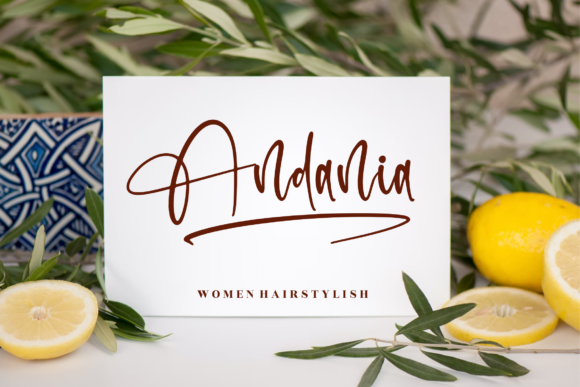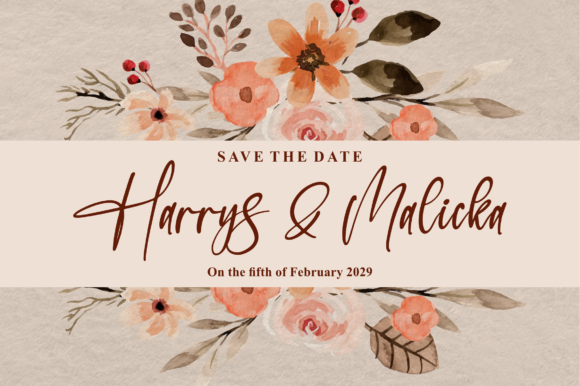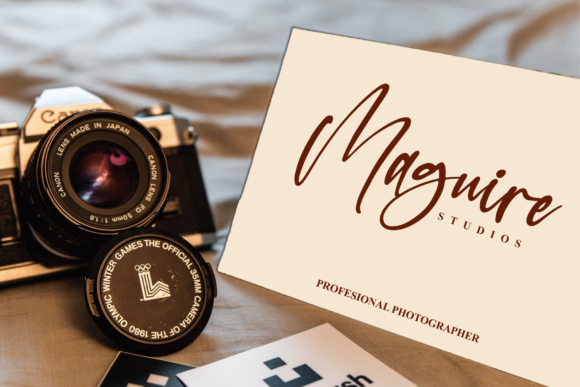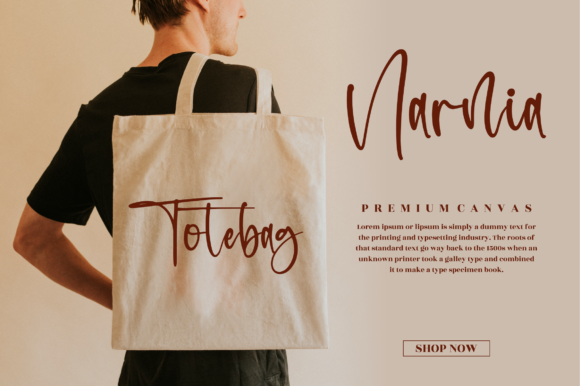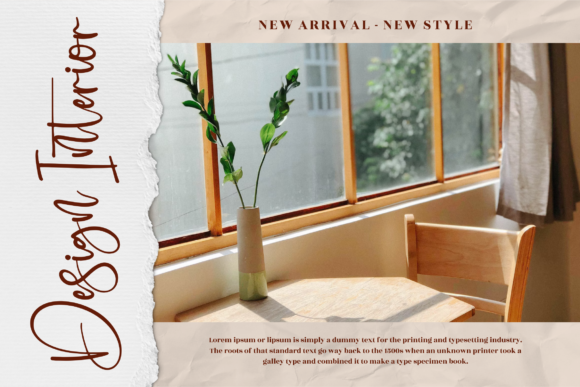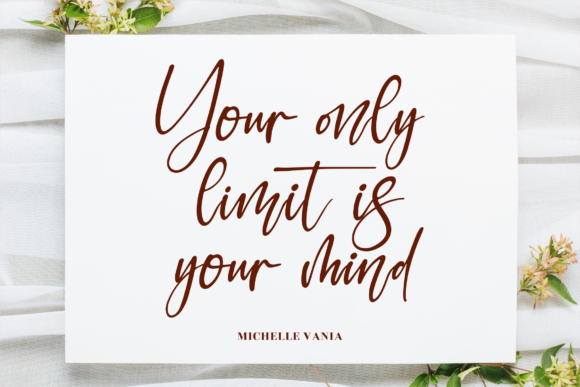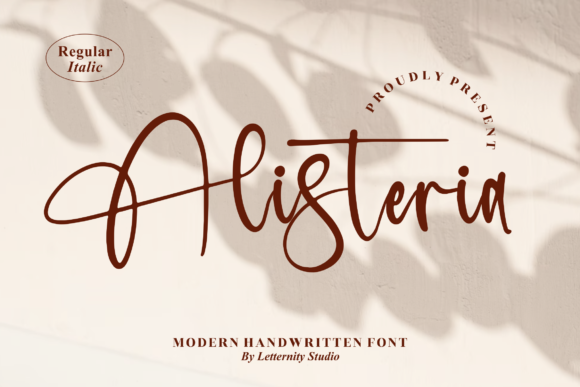
Introducing Alisteria Font: Elevate Your Designs with Luxurious Calligraphy
Are you looking for a font that adds a touch of elegance and sophistication to your design projects? Look no further than Alisteria Font, a stunning calligraphy typeface that is sure to make your designs stand out. With its unique and flowing characters that dance along the baseline, Alisteria Font is the perfect choice for designers and crafters who want to add a luxury spark to their work.
What Makes Alisteria Font Special?
Alisteria Font is a beautiful calligraphy typeface that boasts a range of impressive features. One of the standout features of this font is its PUA (Private Use Area) encoding, which allows you to access all of the amazing glyphs and ligatures with ease. This means that you can easily add intricate details and flourishes to your designs, taking them to the next level.
The Benefits of Using Alisteria Font
So why should you choose Alisteria Font for your design projects? Here are just a few of the benefits of using this gorgeous font:
- Adds a touch of luxury: With its elegant and sophisticated design, Alisteria Font is the perfect choice for designers who want to add a touch of luxury to their work.
- Unique and eye-catching: The flowing characters and intricate details of Alisteria Font make it a truly unique and eye-catching choice for any design project.
- Easy to use: Thanks to its PUA encoding, Alisteria Font is easy to use and allows you to access all of the amazing glyphs and ligatures with ease.
- Versatile: Whether you’re working on a branding project, a wedding invitation, or a craft project, Alisteria Font is a versatile choice that can be used in a wide range of applications.
Alisteria Font is a perfect choice for designers and crafters who want to add a touch of elegance and sophistication to their work. Whether you’re a professional designer or a hobbyist crafter, this font is sure to inspire you to create something truly special.
For designers, Alisteria Font is a great choice for a wide range of projects, including:
- Branding and logos: Add a touch of luxury to your brand with Alisteria Font, perfect for creating elegant and sophisticated logos.
- Wedding invitations and stationery: Make your wedding invitations and stationery stand out with Alisteria Font, perfect for creating beautiful and elegant designs.
- Packaging and product design: Add a touch of elegance to your packaging and product design with Alisteria Font, perfect for creating high-end and luxurious designs.
For crafters, Alisteria Font is a great choice for a wide range of projects, including:
- Handmade cards and invitations: Add a touch of elegance to your handmade cards and invitations with Alisteria Font, perfect for creating beautiful and unique designs.
- Journaling and scrapbooking: Make your journaling and scrapbooking projects stand out with Alisteria Font, perfect for creating elegant and sophisticated designs.
- DIY crafts and projects: Add a touch of luxury to your DIY crafts and projects with Alisteria Font, perfect for creating beautiful and unique designs.